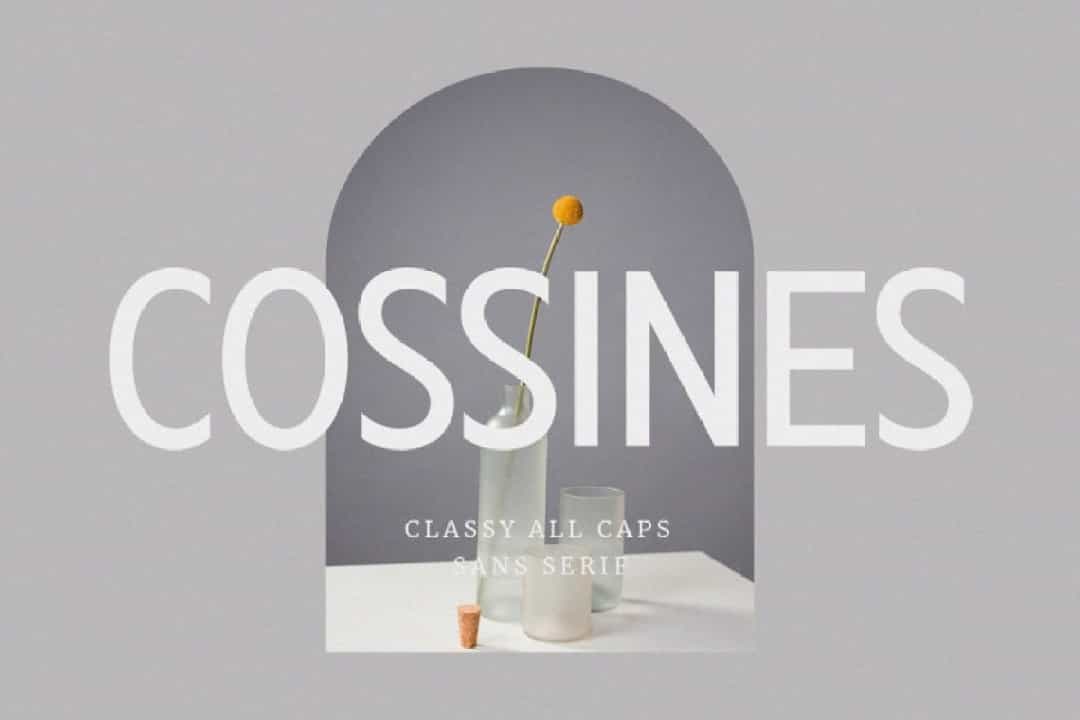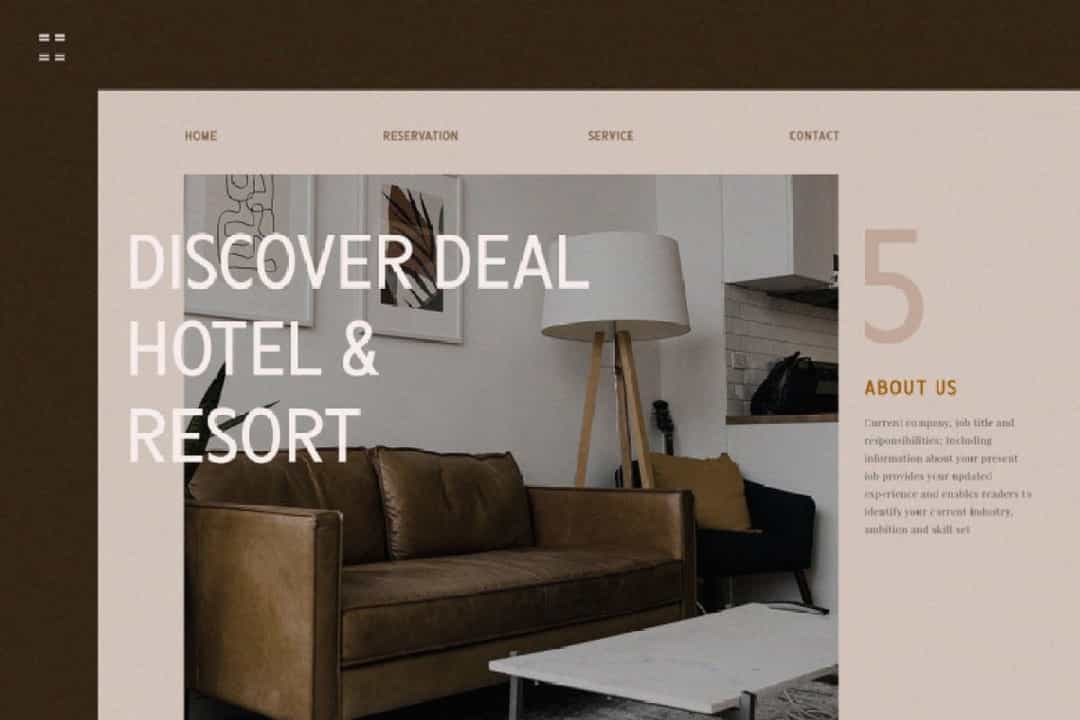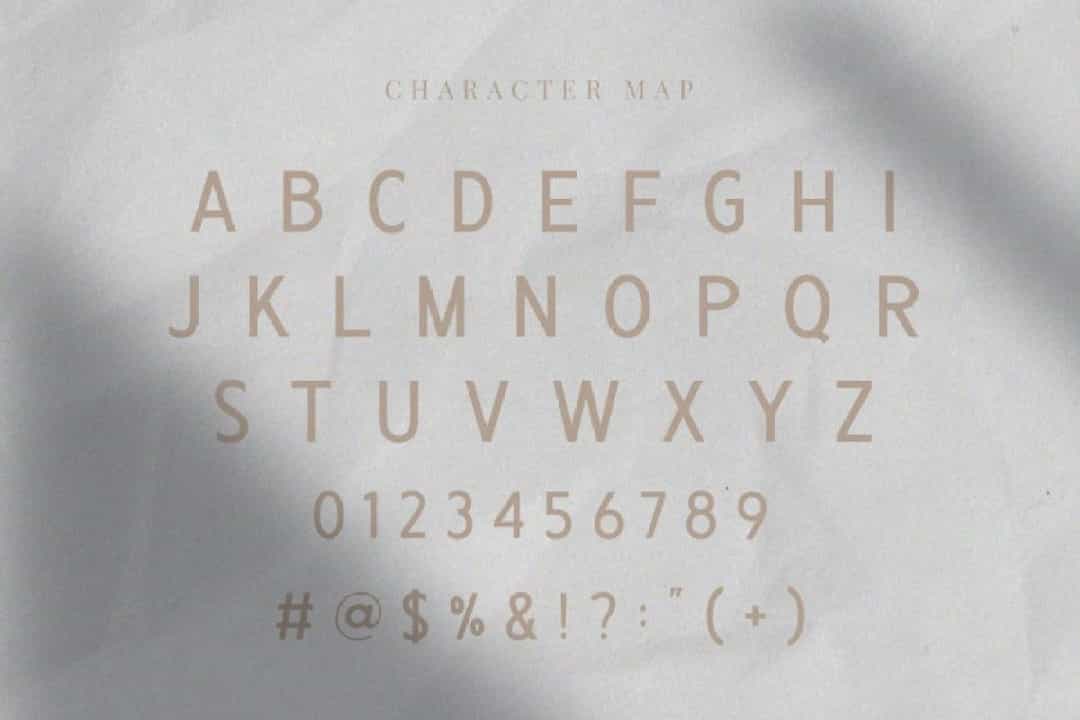
Cossines can be described as an elegant and robust sans serif font that’s versatile enough for use across small to large sizes, ideal for headings, logos and branding in magazines, packaging or invitations. Cossines features straight lines as well as smooth curves which add quality.